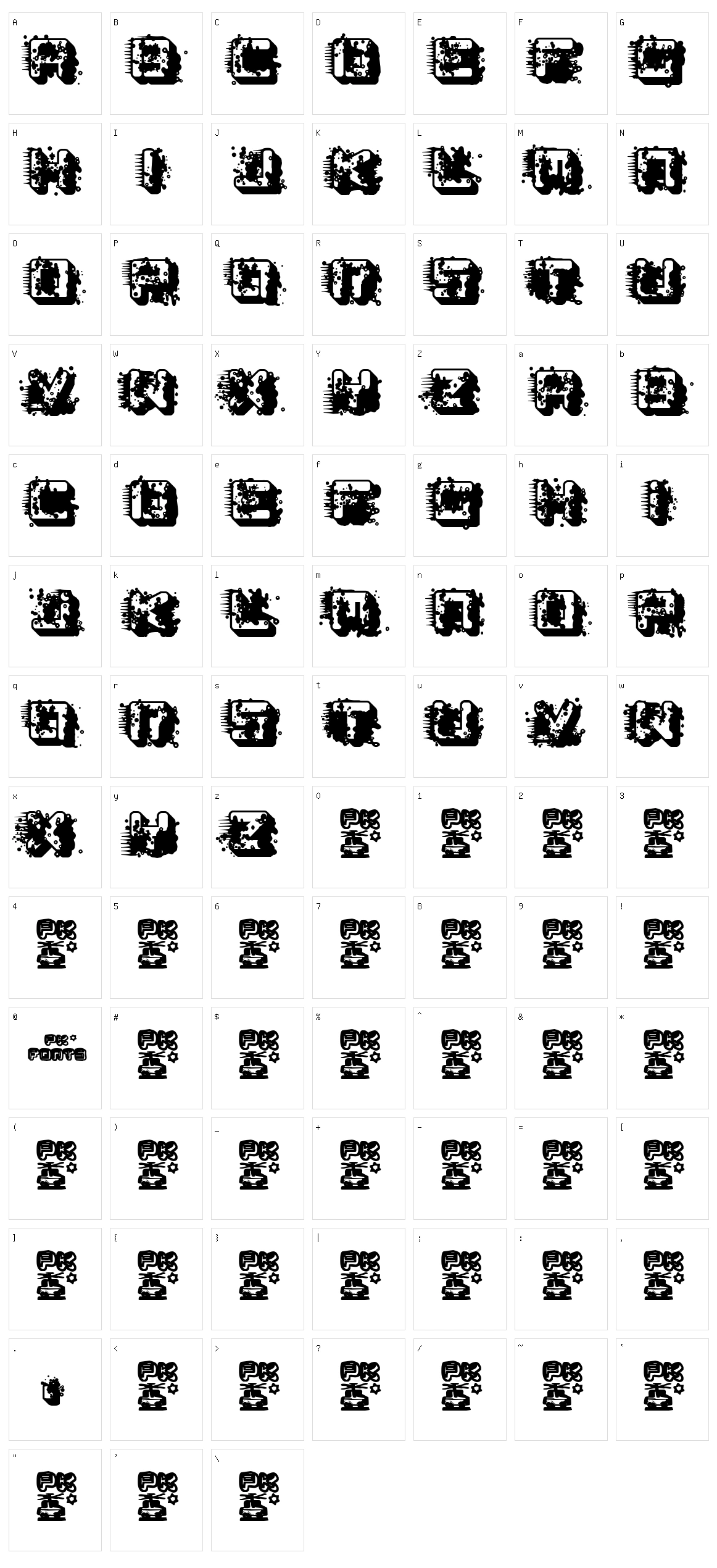
The free font pk LSD is carefully designed by paintblack, showcasing a thoughtful balance of creativity and usability and falls under the Destroy font style. When you download the ZIP file, it contains only 111.87 KB of font files, making it lightweight and quick to download. Please review the license details below to understand permitted usage and distribution rights. If license information is not available, we recommend using this font for personal projects only or contacting the author directly for commercial usage permissions.